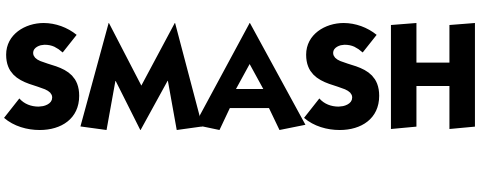
Super Smash Bros. Font
FightingSuper Smash Bros. is a popular fighting game franchise developed by Nintendo, where players battle against each other using various characters from Nintendo's games.
The logo on the cover is made up of two sans-serif fonts: Bodega Sans and Kabel. The word "SMASH" is written in Kabel Bold, while "SUPER BROS" is written in Bodega Sans Light Old Styles. In the second game of the series and onwards, a serif font was used for the logo. You can download a free fan-made font called Super Smash from the Fonts Used Section to recreate the logo.